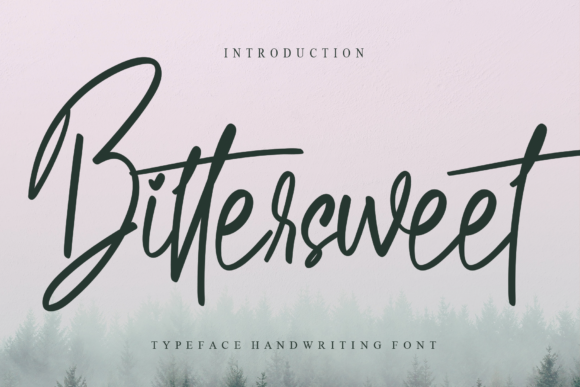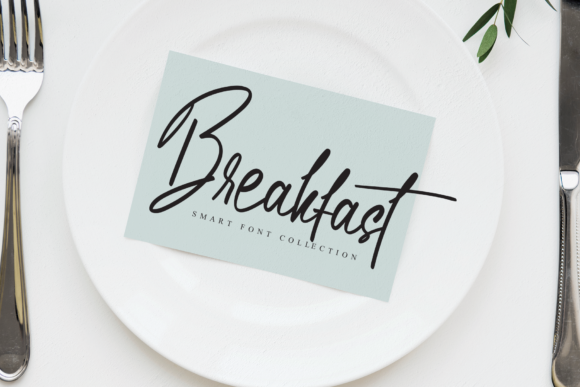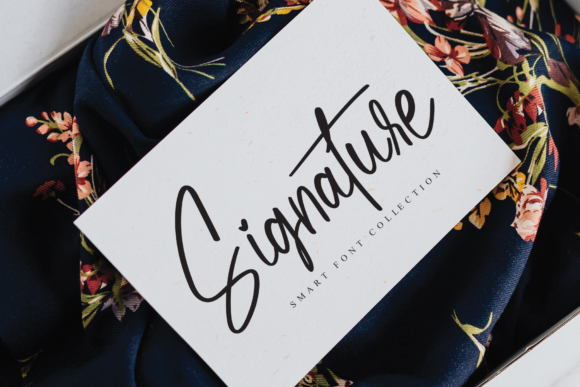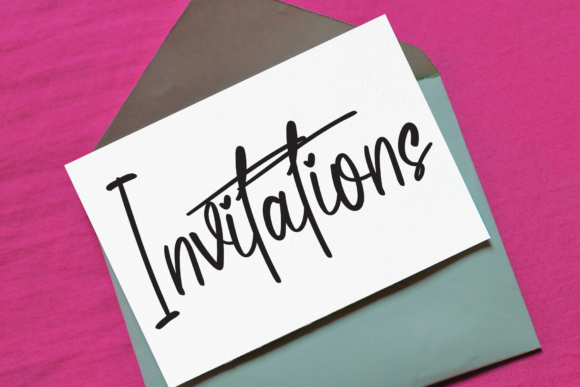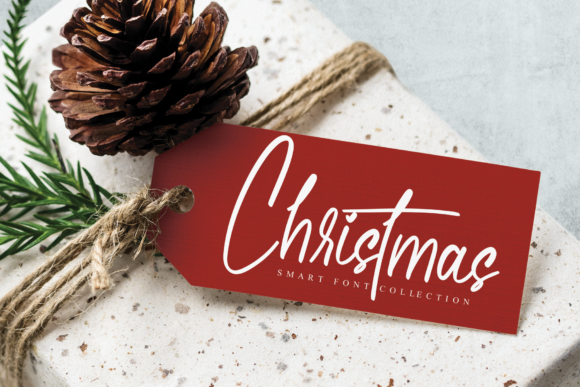
Bittersweet Font
About Bittersweet Font
Bittersweet is a lovely and timeless handwritten font. It is the best choice for creating eye catching logos, branding and quotes. Every letter has a unique and beautiful touch, which will make your design come alive!